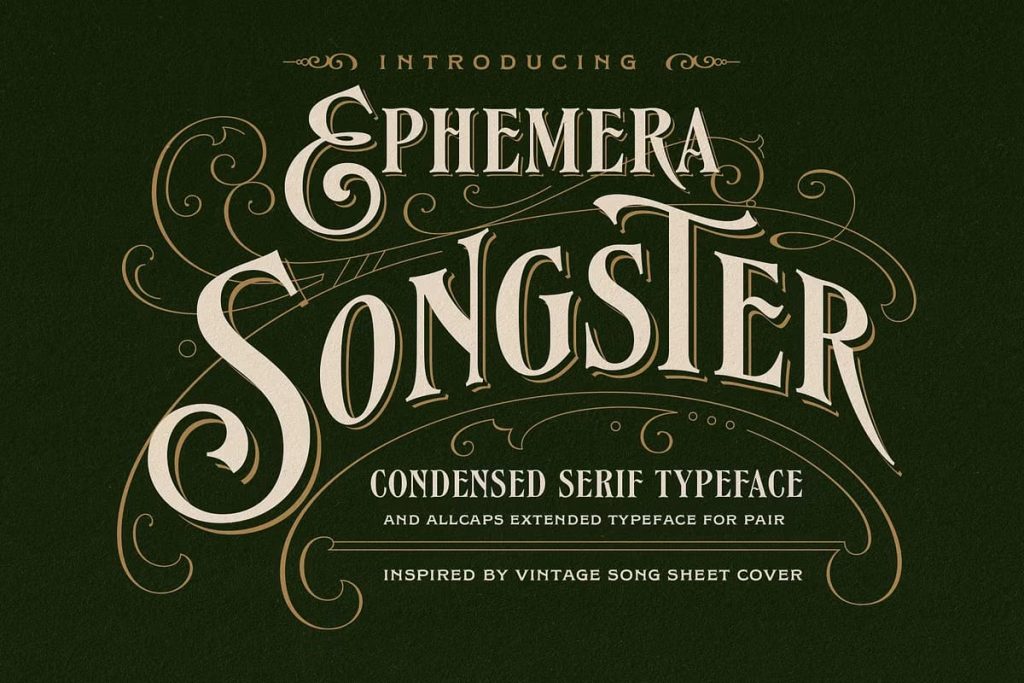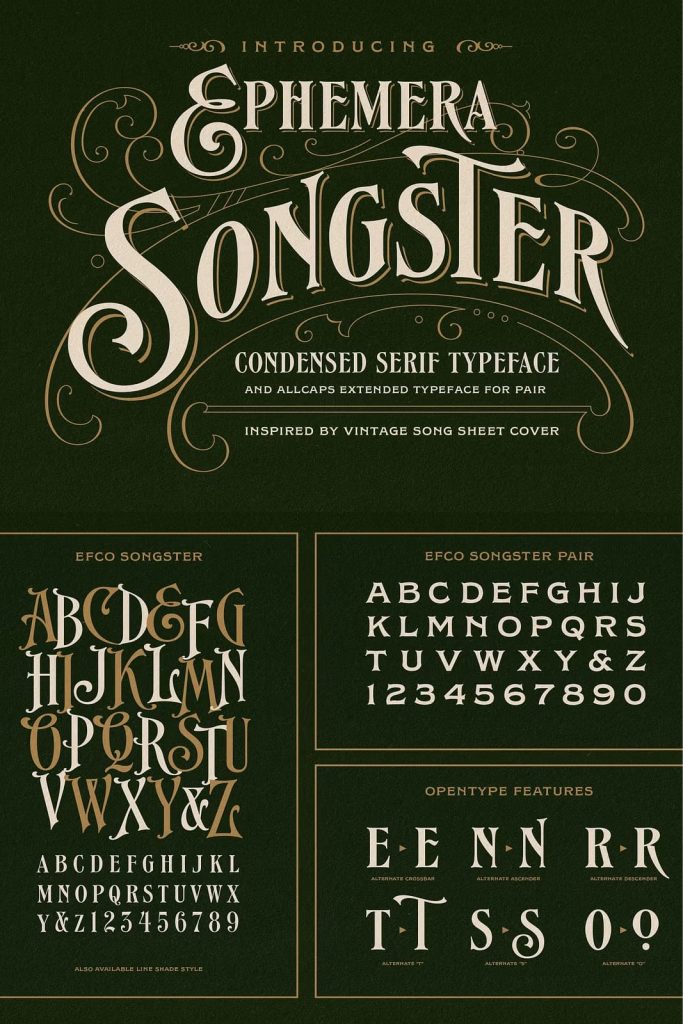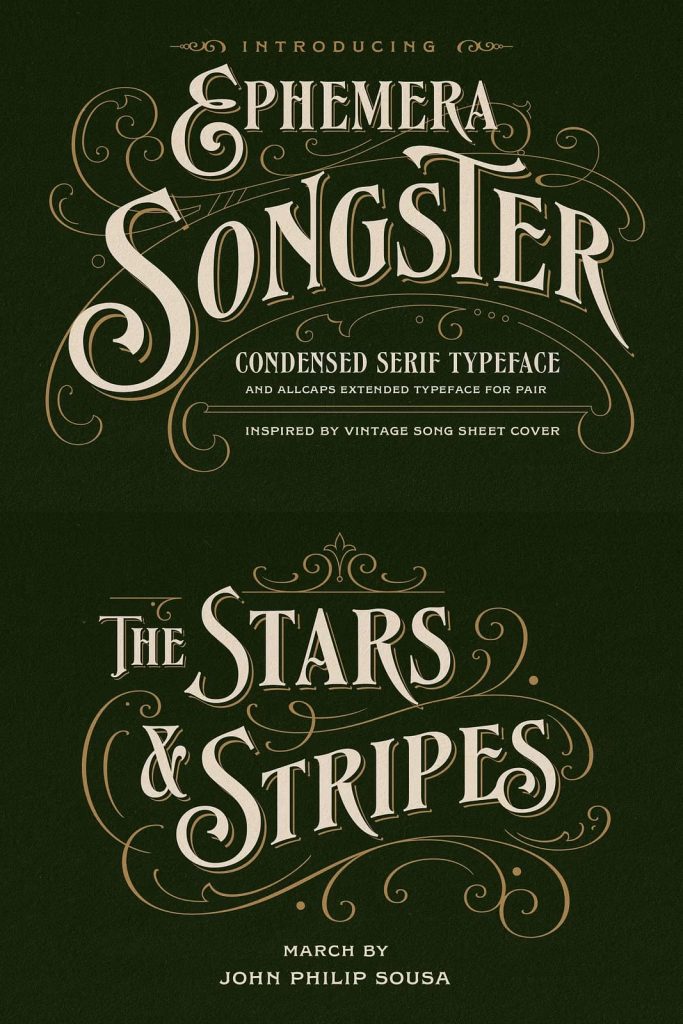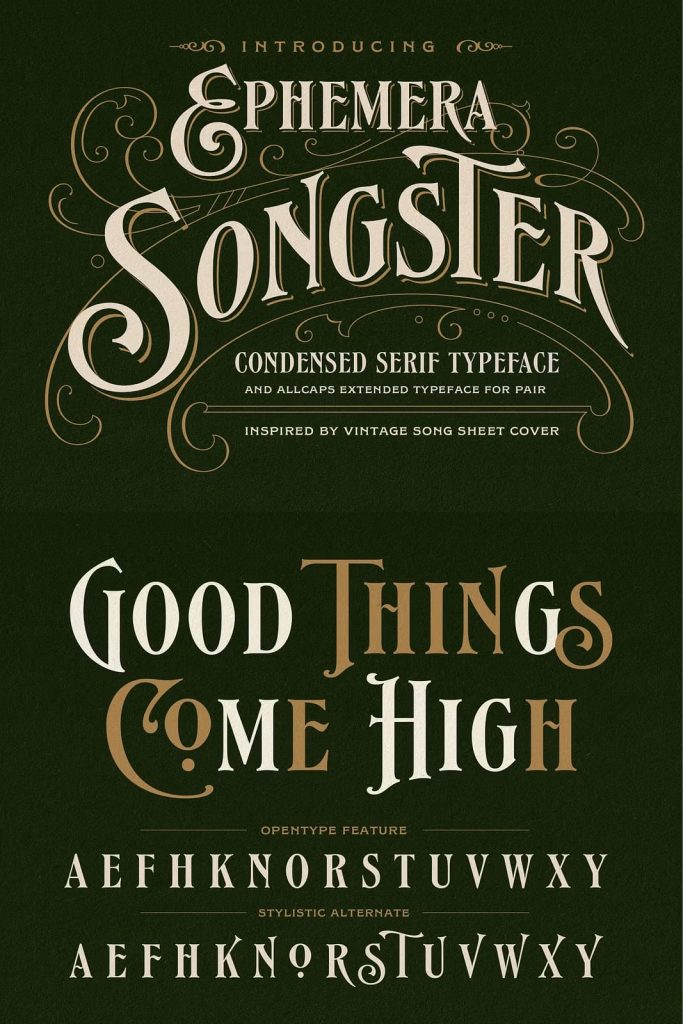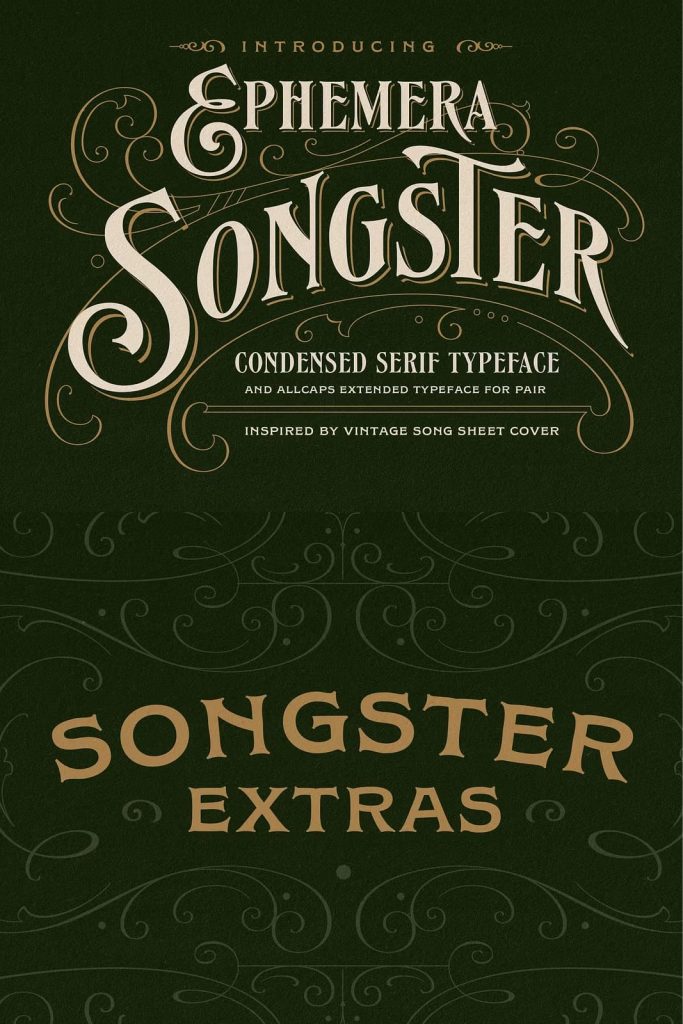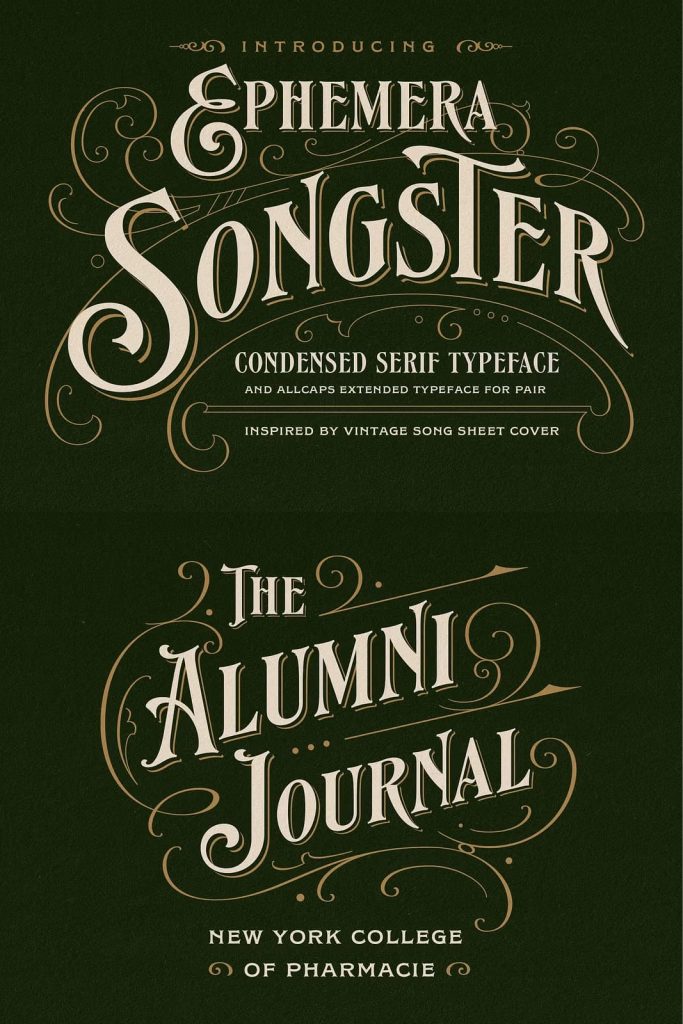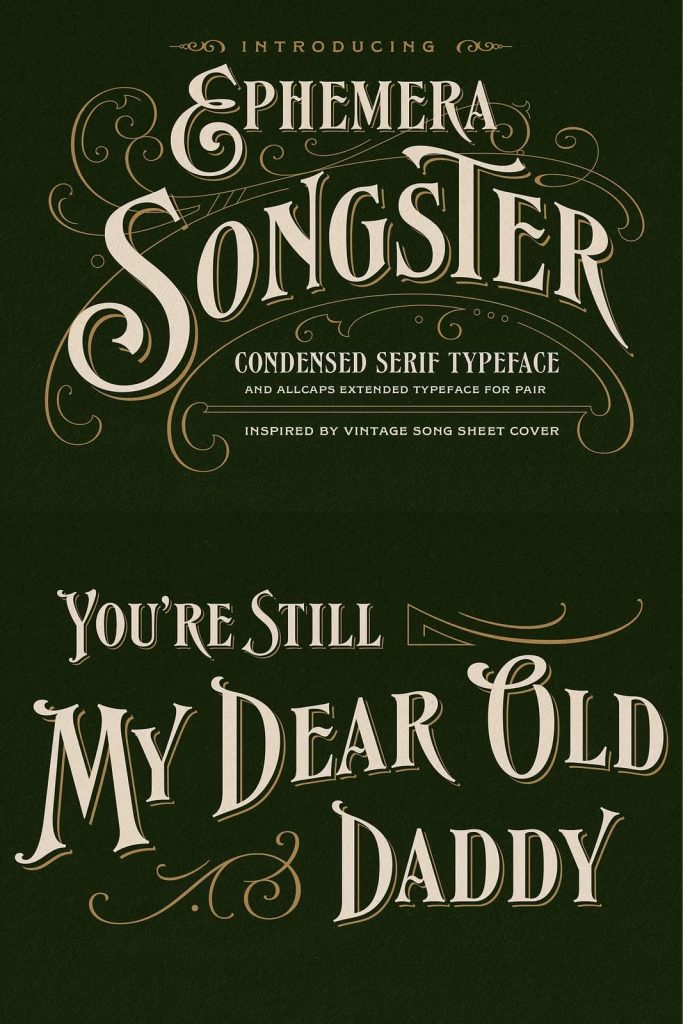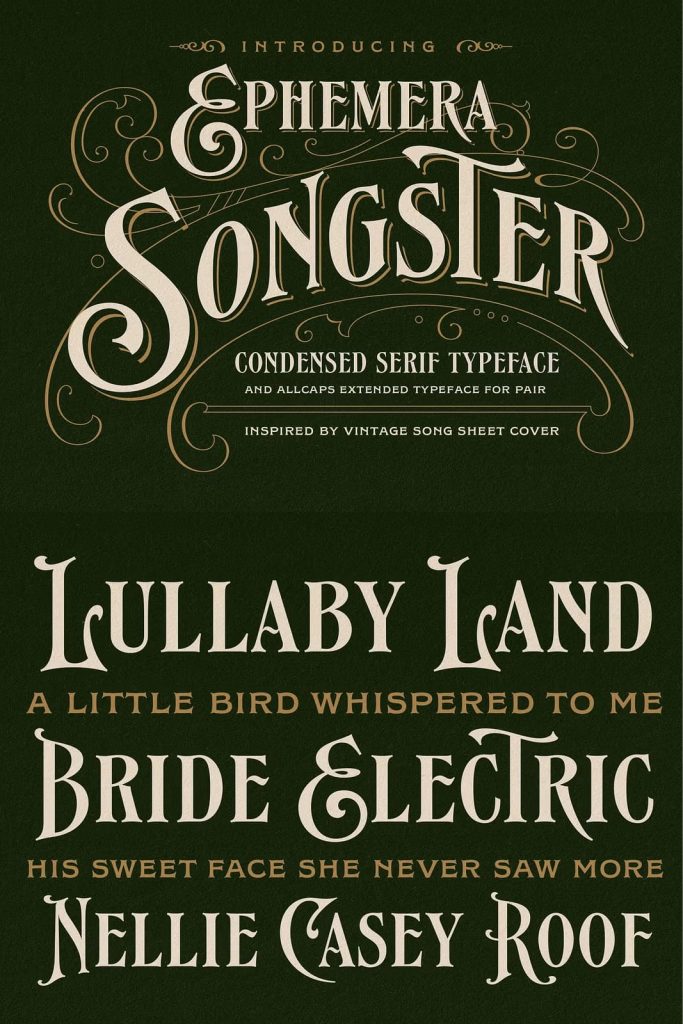
Songster, Inspired by the Vintage Song Sheet Cover from the 19th Century. Thick n thin with a serif typeface, Comes with 2 style All-caps (Regular and Line Shade) and is also available with pair font and ornament extras.
OpenType features support stylistic alternate characters to give a unique personality to the typography composition.
Suitable for display needs such as signage, poster, logo, label, headline, cover design, etc